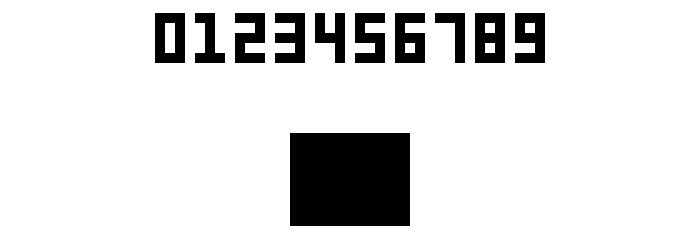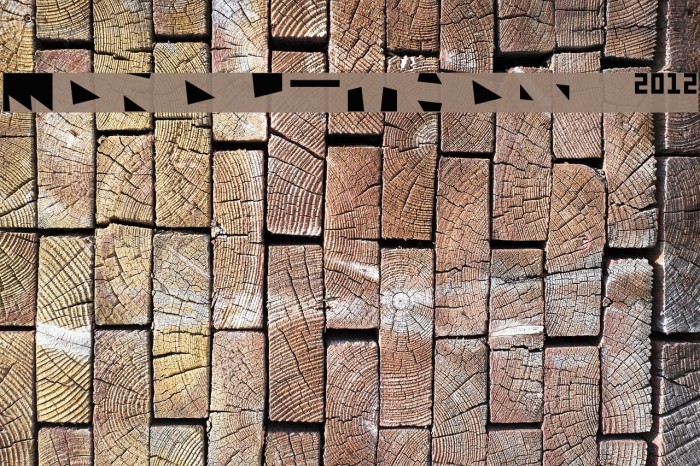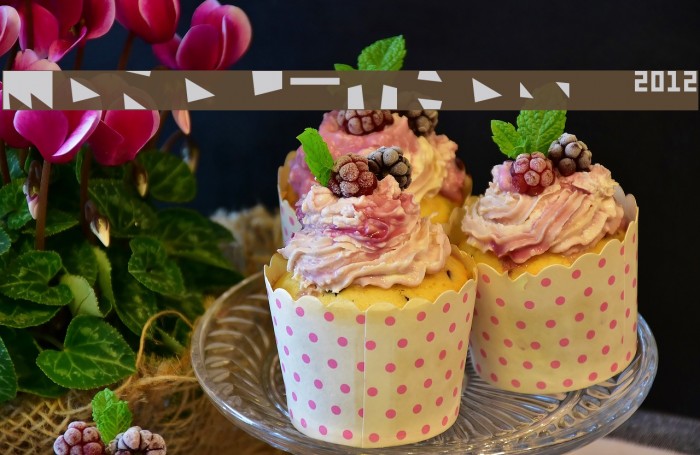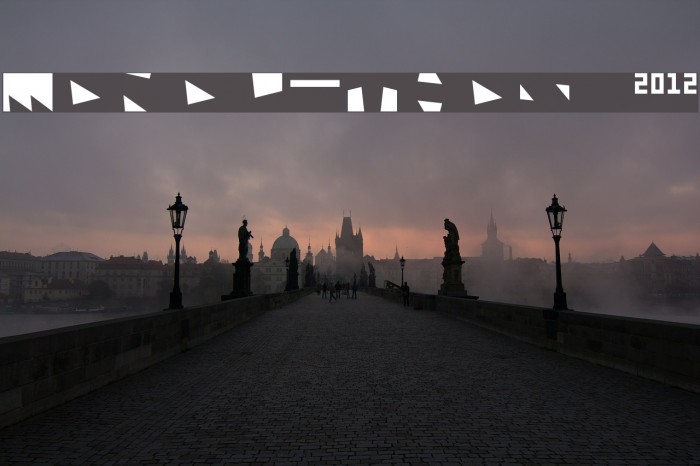
Monolithos 2012 Font
This font features a bold, geometric design with a distinctly modern and futuristic aesthetic. The characters are constructed with sharp angles and solid, block-like forms, giving them a strong, impactful presence. The uppercase letters are particularly striking, with a uniform height and width that create a cohesive look. The lowercase letters maintain the same geometric style, though they are slightly more abstract in form. The numerals are clear and legible, following the same bold design principles. Overall, this font is highly decorative and makes a strong visual statement.
• Proposed Projects: Ideal for sci-fi themed projects, video game titles, posters, and branding that requires a strong, modern look.
• Category: Decorative/Display
• Overall Style: Modern
• Use Case: Headlines, Logos